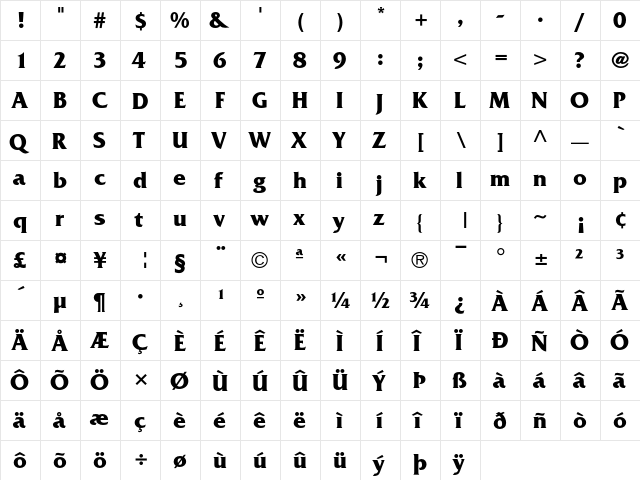
Friz Quadrata Bold
Design Context for Friz Quadrata Typeface
Friz Quadrata is a composed and adaptable typeface that performs quietly and consistently across a wide range of design contexts. The heavy weight commands attention and anchors typographic hierarchies.